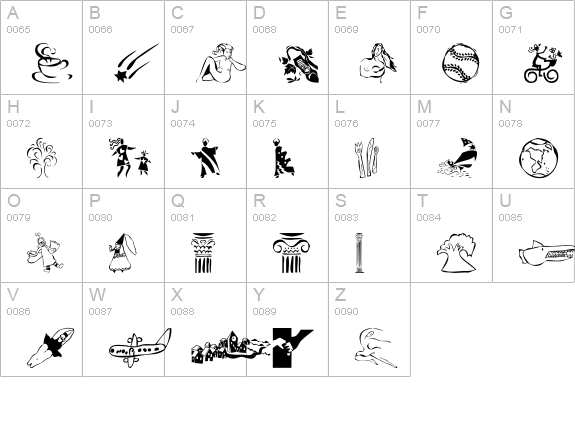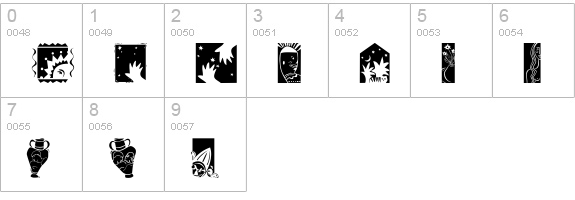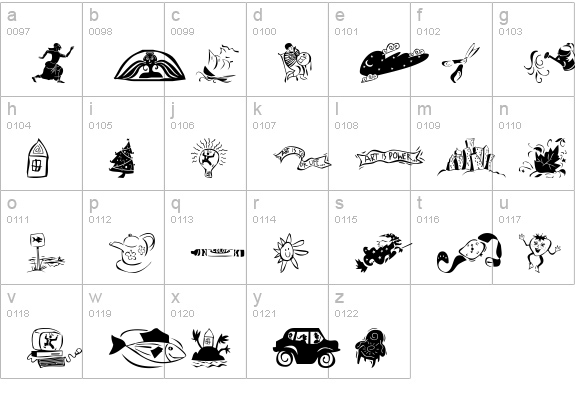
DF Eclectics Font Details
DF Eclectics font is a versatile and modern typeface that effortlessly combines elegance and creativity. Its unique design features a harmonious blend of sleek lines and bold curves, making it perfect for a wide range of design projects. Whether you're working on branding, marketing materials, or creative artworks, this font is sure to make a statement. The best part? DF Eclectics font is available for free download at FontsMarket.com. Now you can enhance your projects with this stunning font without breaking the bank. Don't miss out on the opportunity to add a touch of sophistication and style to your designs with DF Eclectics font.